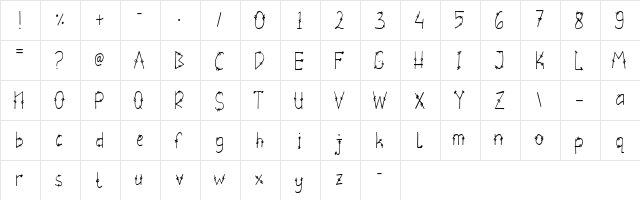
Gregori Regular
| Designer | Oziel89 Studio |
Design Context for Gregori Typeface
Gregori is a composed and adaptable typeface that performs quietly and consistently across a wide range of design contexts.